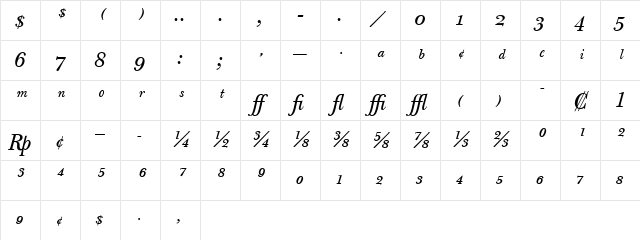
BulmerMTExpert is a composed and adaptable typeface that performs quietly and consistently across a wide range of design contexts. The slanted form adds forward momentum and visual energy.